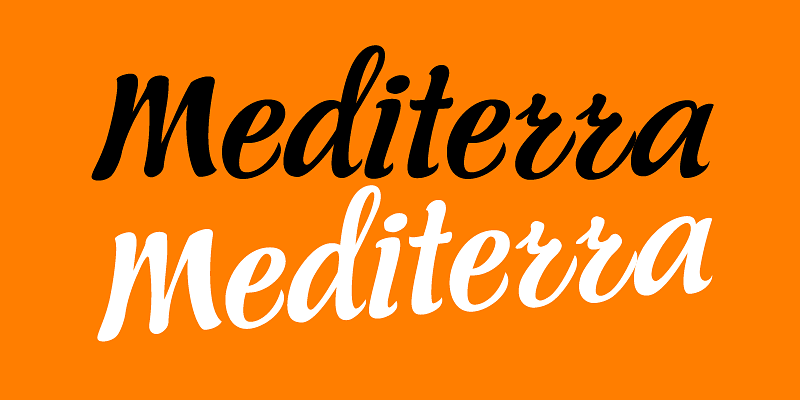
PF Mediterra Font excels in coastal applications including Mediterranean restaurants, luxury beach resorts, yacht clubs, olive oil producers, seaside hotels, Greek tavernas, Italian trattorias, and coastal lifestyle brands that require sun-kissed typography with Mediterranean warmth and authentic coastal sophistication that captures the essence of seaside living.
What makes PF Mediterra Font exciting is its exceptional ability to embody the relaxed elegance of Mediterranean coastal culture through harmonious letterforms that radiate warmth and coastal charm. This inviting typeface features gentle curves and sun-warmed characteristics inspired by ancient Mediterranean civilizations, making it perfect for brands celebrating coastal lifestyle and authentic Mediterranean experiences.
The PF Mediterra Font family includes light, regular, medium, and bold weights, complemented by extensive multilingual support for Greek, Italian, and Spanish applications. Each style maintains the font's characteristic Mediterranean warmth while providing designers with comprehensive tools for creating inviting layouts and coastal brand communications that transport audiences to seaside paradises.
Hospitality professionals consistently choose PF Mediterra Font Free Download for projects requiring authentic Mediterranean appeal and coastal sophistication. This versatile typeface seamlessly conveys seaside elegance while maintaining excellent readability, ensuring brand messages resonate with audiences seeking genuine Mediterranean experiences and coastal lifestyle products that honor ancient traditions.
The font's Mediterranean heritage and coastal character make it particularly suitable for hospitality and luxury sectors. PF Mediterra Font delivers exceptional coastal impact while ensuring clear communication, offering designers a sophisticated solution for creating memorable brand identities that communicate warmth, tradition, and Mediterranean excellence across coastal and luxury hospitality marketing applications.